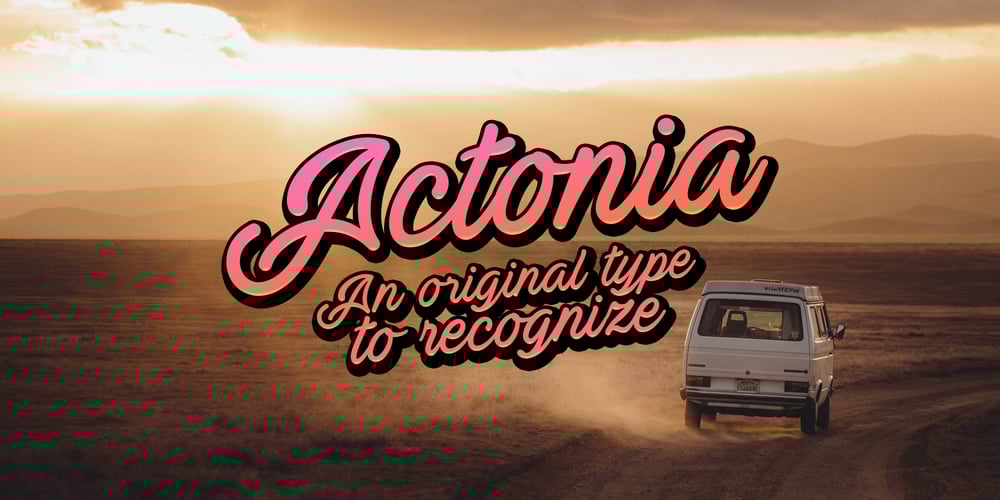
Actonia Font Family was designed by Måns Grebäck and published by Mans Greback. Actonia contains 2 styles and family package options. Actonia is a an original type to recognize. It comes in two versions; Regular and Hand. The font contains contextual alternates and ligatures. Meticulously created by Måns Grebäck, Actonia works great in logotypes and slogans. Use it as the go-to font for your business’ titles.